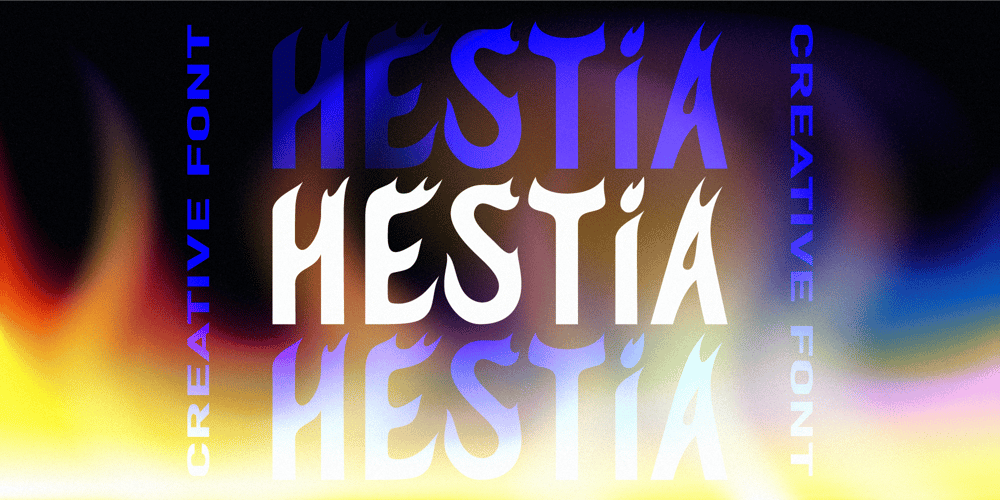
Hestia
Hestia font
Hestia Font Family was designed by Fidan Aslanova and published by Fidan Fonts. Hestia contains 1 styles and family package options. Hestia is an uppercase creative font inspired by flames of fire. We’ve tried to create a dynamic font based on sans-serif fonts. It’s works perfectly for headlines, logos, posters, packaging, T-shirts, postcards and many more. Latin-based Language Support.Happy creating!